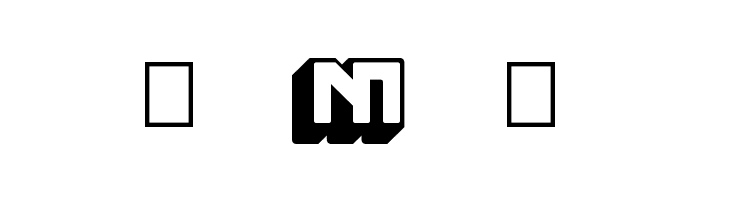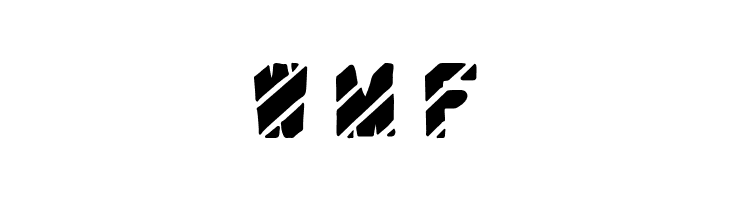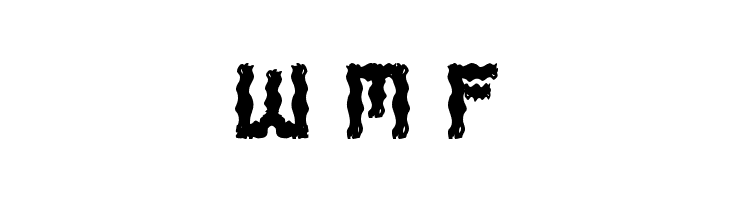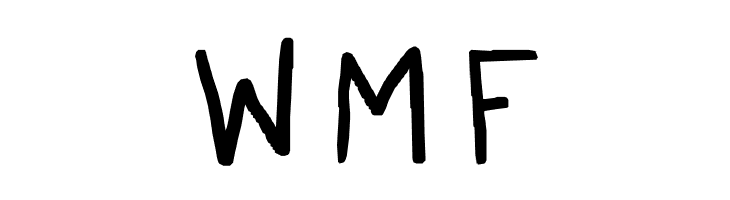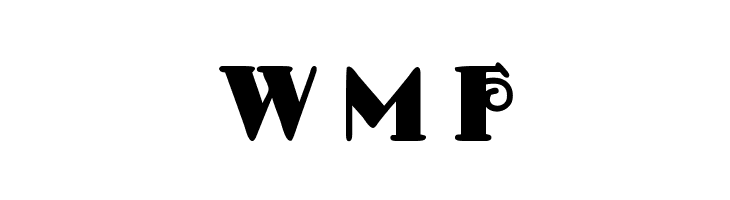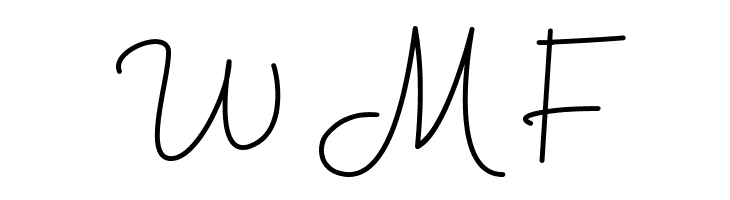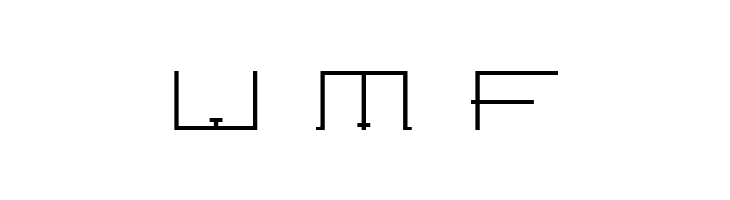
A playful, rounded font with a hand-drawn, whimsical style.
A bold, dripping font ideal for horror themes and eerie designs.
A decorative horse-themed dingbat set with varied styles and motifs.
A bold, decorative font with vintage-inspired flourishes and artistic elements.
Bold, 3D slab serif font with strong shadow effects.
A playful and elegant handwritten font with smooth, flowing lines.
A geometric, futuristic font with a grid-like, angular design.
A bold, geometric stencil font with angular, fragmented strokes.